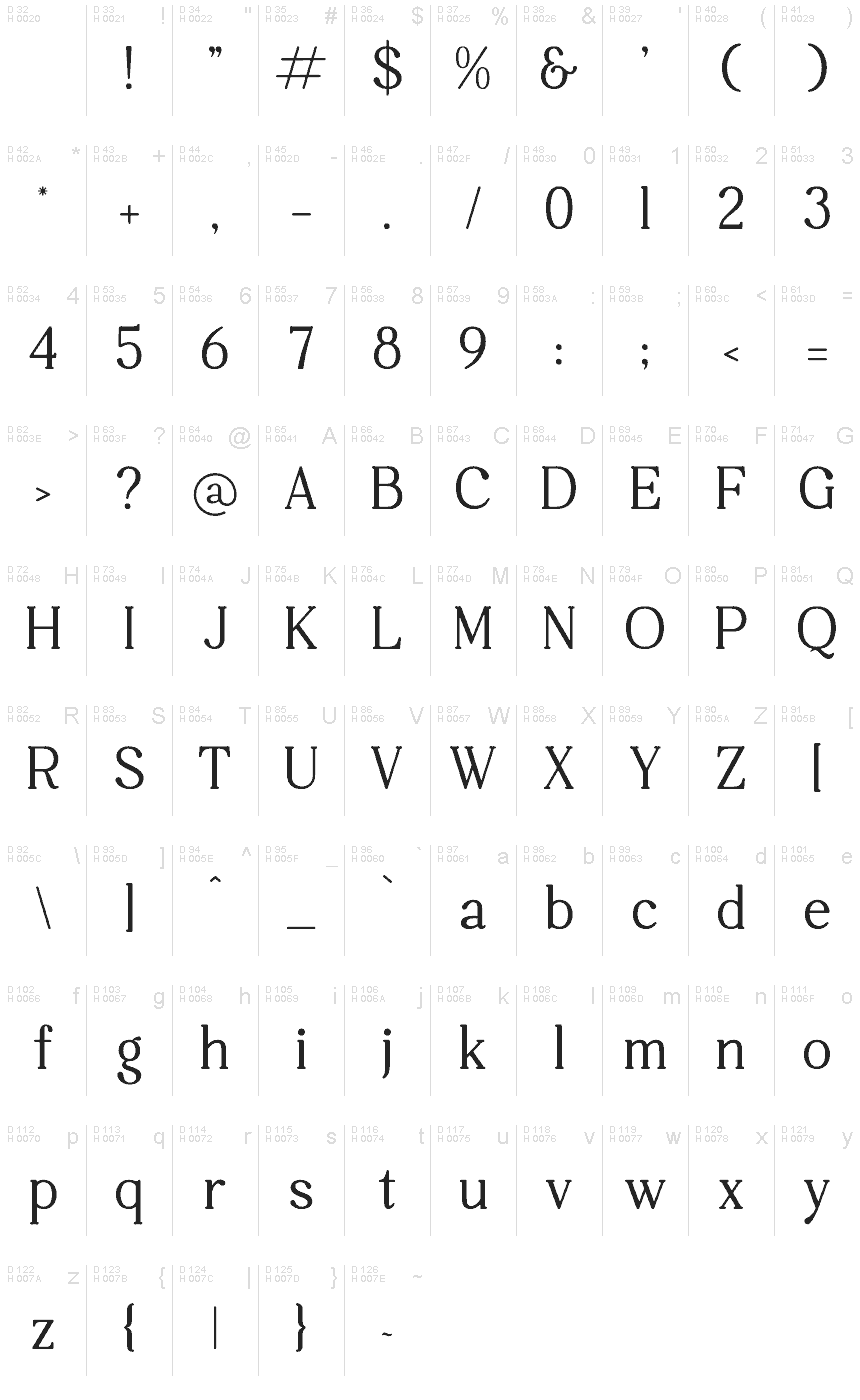
Willfteka
Willfteka font by Storytype Studio is a professional free serif font presented with classic and refined form. Its structured shape allows readers to quickly recognize letters and read easy both small and large text sizes. The slightly different thickness of strokes gives it a crisp look that makes it unique while staying versatile.
Keywords describing Willfteka additional uses hold both print or digital mediums, journals, headlines, long posts, posters, branding projects, typography designs jobs at schools or universities and more! Visually related logos or packaging can also benefit from this style where creativity is required but presented in a regulated manner.